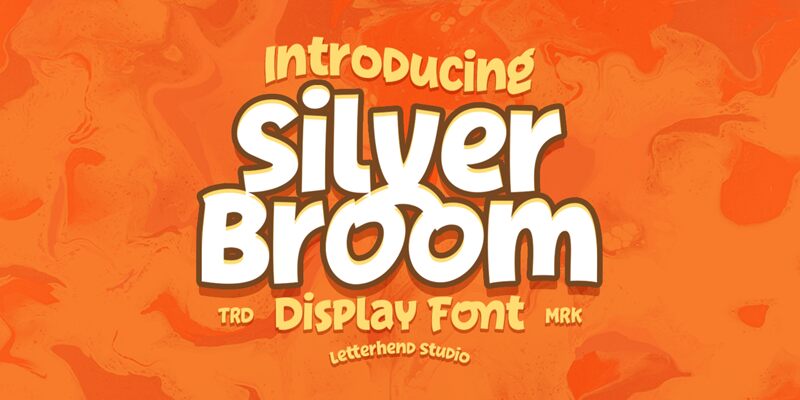
Experience the whimsy and charm of Silver Broom, a bold display font crafted by the imaginative minds at Letterhend Studio. With its cartoonish flair, Silver Broom sweeps in to capture the essence of playfulness and creativity that will make your project stand out. Whether you're weaving tales in children's storybooks or branding with a touch of enchantment, this font infuses your work with a dose of fun that's hard to ignore.
Silver Broom's versatility stretches beyond just child-themed designs; it's an impeccable choice for invitations, labels, logos, and even high-fashion branding where bold statements are a must. Its distinctive style ensures that every word strikes with impact and personality-perfect for those seeking to leave a lasting impression in an array of creative endeavors. Embrace the magic of Silver Broom and let your designs come alive with its captivating charm!